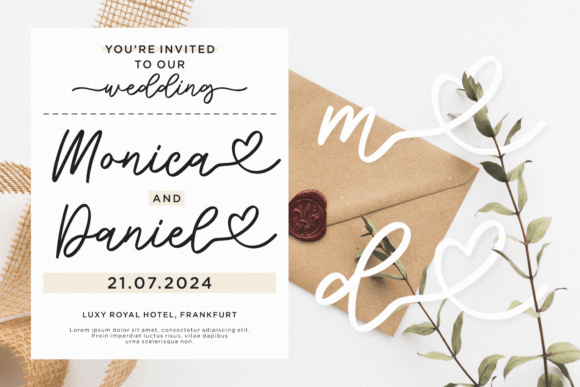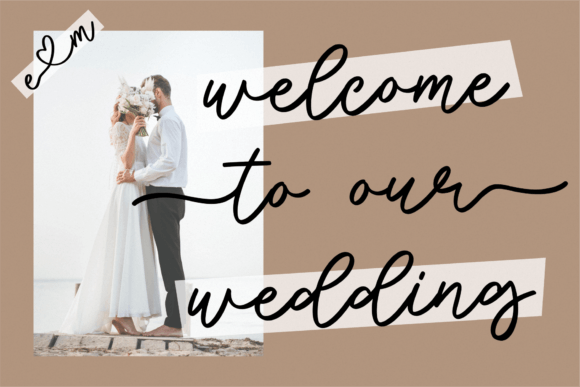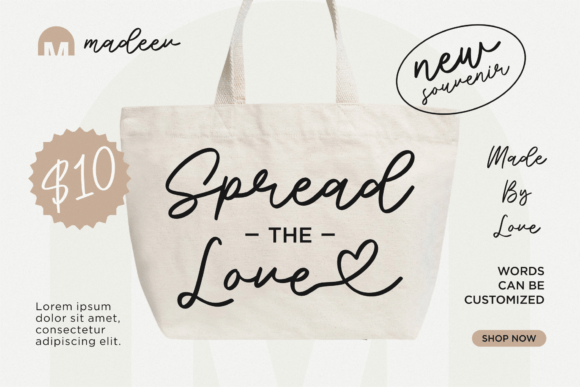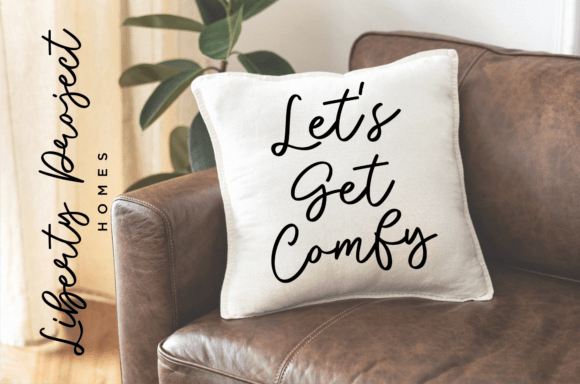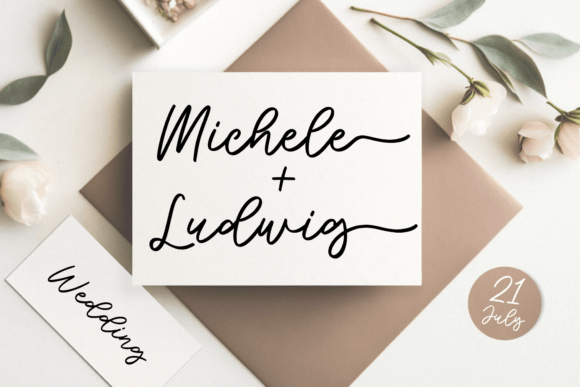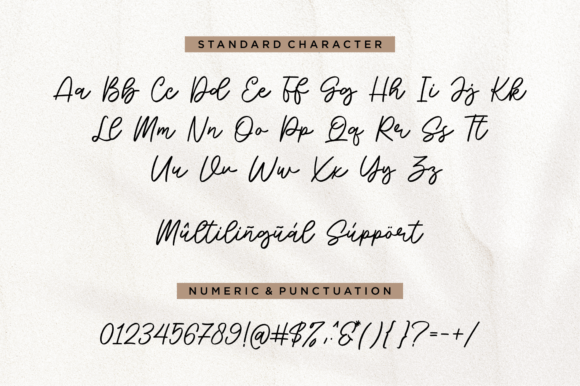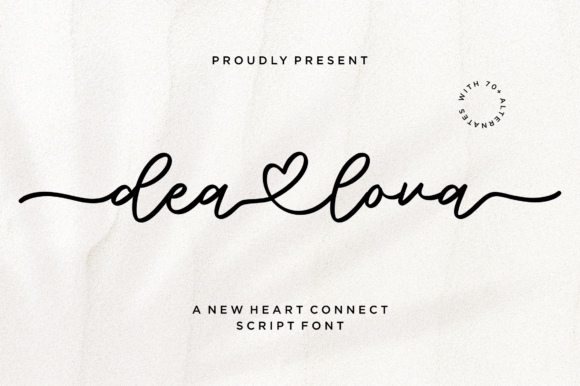
Introducing Dealova Font: The Ultimate Romantic Heart Connect Script Font
Are you a designer or crafter looking for a font that embodies the essence of love and romance? Look no further than Dealova Font, an exceptionally romantic Heart Connect Script Font that is sure to capture the hearts of your audience. With its exclusive collection of over 70 elegant swash alternates and captivating heart connections, Dealova Font is the perfect choice for any project that requires a touch of elegance and sophistication.
A Font that Celebrates Love
Dealova Font is more than just a font – it’s a celebration of love and romance. Its exquisite design and harmonious blend of swashes and heart connections make it the perfect choice for product packaging, branding initiatives, magazine design, social media, and wedding accents. Whether you’re designing a romantic getaway brochure, a wedding invitation, or a social media post, Dealova Font is sure to add a touch of magic to your project.
Exceptional Features of Dealova Font
- Over 70 Elegant Swash Alternates: Dealova Font comes with an exclusive collection of over 70 elegant swash alternates that will add a touch of sophistication to your project.
- Captivating Heart Connections: The font features captivating heart connections that will make your project stand out from the rest.
- Romantic and Elegant Design: Dealova Font has a romantic and elegant design that is perfect for any project that requires a touch of love and sophistication.
- Versatile: The font is versatile and can be used for a variety of projects, including product packaging, branding initiatives, magazine design, social media, and wedding accents.
Perfect Applications of Dealova Font
Dealova Font is perfect for a variety of applications, including:
- Product Packaging: Add a touch of elegance and sophistication to your product packaging with Dealova Font.
- Branding Initiatives: Use Dealova Font to create a romantic and elegant brand identity that will capture the hearts of your audience.
- Magazine Design: Dealova Font is perfect for magazine design, adding a touch of love and sophistication to your publication.
- Social Media: Use Dealova Font to create romantic and elegant social media posts that will stand out from the rest.
- Wedding Accents: Dealova Font is perfect for wedding accents, including wedding invitations, wedding cards, and other wedding-related projects.
Why Choose Dealova Font?
There are many reasons why you should choose Dealova Font for your next project. Here are a few:
- Unique and Exclusive Design: Dealova Font has a unique and exclusive design that will make your project stand out from the rest.
- Elegant and Sophisticated: The font is elegant and sophisticated, making it perfect for any project that requires a touch of love and sophistication.
- Versatile: Dealova Font is versatile and can be used for a variety of projects.
In conclusion, Dealova Font is an exceptional romantic Heart Connect Script Font that is perfect for any project that requires a touch of love and sophistication. With its exclusive collection of over 70 elegant swash alternates and captivating heart connections, Dealova Font is sure to capture the hearts of your audience. Whether you’re a designer or crafter, Dealova Font is a must-have font that will add a touch of magic to your project.